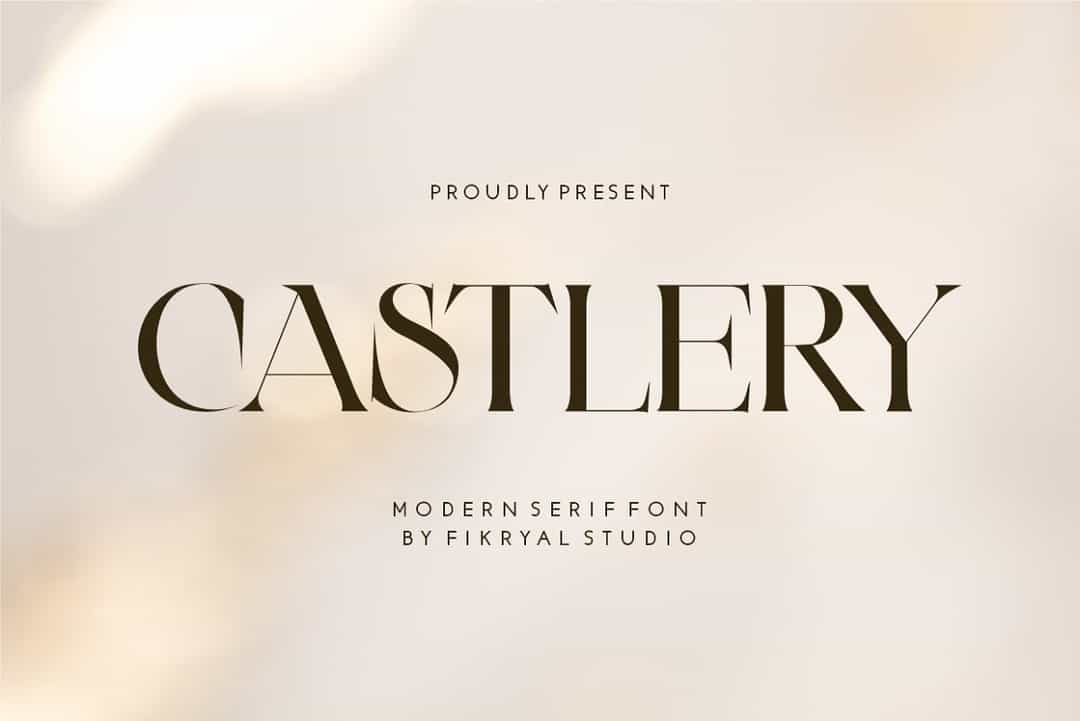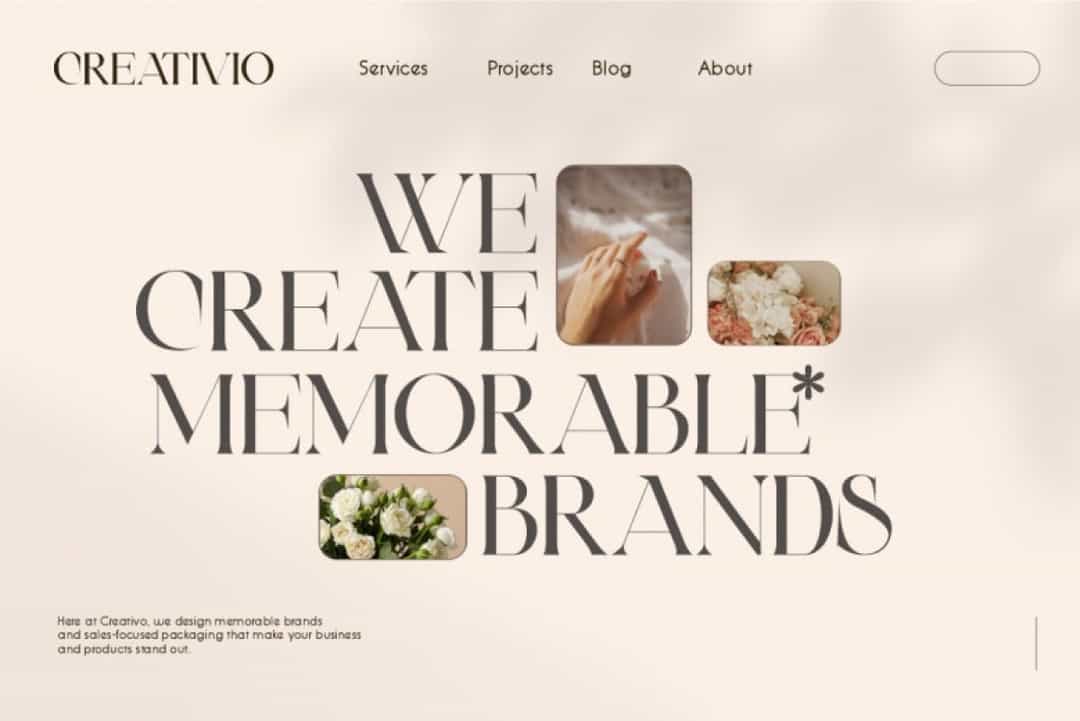
Castlery is a contemporary and sophisticated serif typeface created to give graphic designs and documents an elegant appearance. It boasts smooth and crisp lines with easy-to-read letters. Castlery Font is an elegant serif font designed to add style and distinction to your book covers, logos, magazines, posters and other marketing collateral. Available with uppercase letters for easy modification to meet specific design requirements.